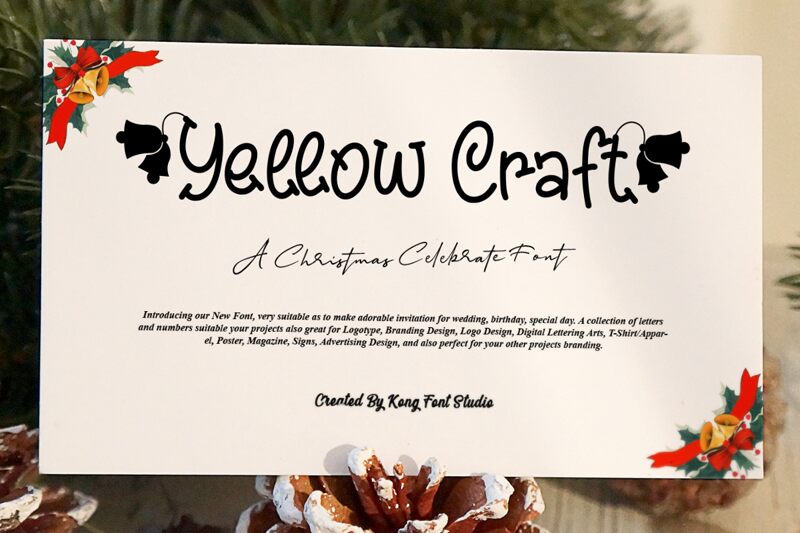
Yellow Craft Bell, a charming addition to the Yellow Craft font family by Kong Font, stands out with its festive flair and decorative appeal. This Christmas dingbat font is adorned with delightful bell icons that capture the joyous spirit of the holiday season. The playful design of each bell, with its intricate details and aesthetic curves, makes it an ideal choice for adding a touch of merriment to any creative project.
With its visually engaging style, Yellow Craft Bell's array of bells can embellish holiday cards, seasonal advertising materials, event invitations, and social media graphics. The silhouettes range from simple and classic to more ornate designs, ensuring versatility in application while maintaining a cohesive look that is instantly recognizable.
Whether used as standalone illustrations or combined to create a festive border or pattern, this font's unique characteristics are likely to draw attention and evoke the warmth of Christmas cheer in viewers. Its suitability extends beyond print media; imagine these icons twinkling on digital platforms or animated in e-greetings.
In essence, Yellow Craft Bell is not just a font-it's an invitation to celebrate tradition with a modern twist. It brings both form and function to designers looking for that special something to make their holiday-themed content stand out.